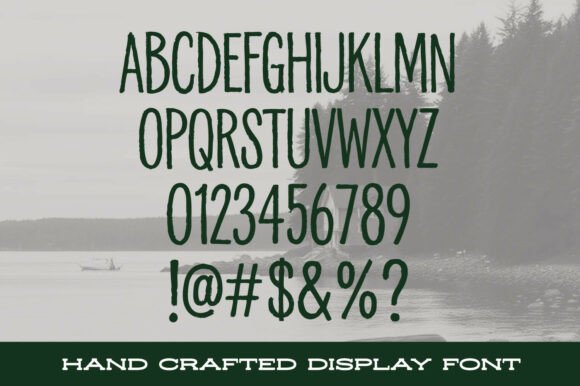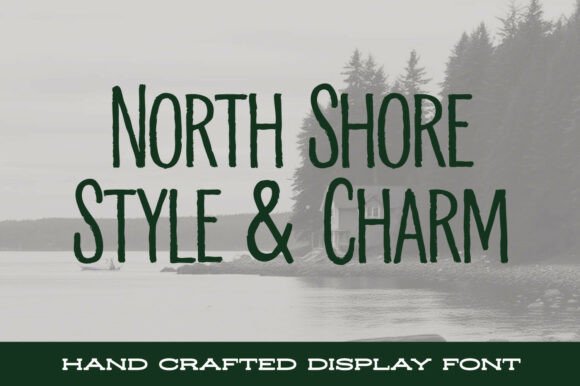
Introducing Grand Marais Font: A Hand-Drawn Display Font with a Rustic Charm
Are you looking for a font that captures the essence of the great outdoors? Do you want to add a touch of rustic charm to your designs? Look no further than Grand Marais Font, a tall, narrow, and hand-drawn display font that embodies the spirit of adventure and artisanal craftsmanship.
The Inspiration Behind Grand Marais Font
Grand Marais Font is inspired by the natural beauty and rustic charm of the North Shore. The font’s creator drew inspiration from the rugged landscape, weathered wood, and distressed textures found in the great outdoors. The result is a font that blends a handcrafted wildness with readability, making it perfect for designers and crafters who want to add a touch of authenticity to their work.
Design Characteristics of Grand Marais Font
Grand Marais Font is a bold yet slender display font with a distressed organic edge. Its letterforms rise with rugged confidence, carrying subtle irregularities and small serifs that give it a weathered, authentic character. The font’s imperfect strokes and raw texture bring a sense of personality and grit, while its condensed proportions ensure impact in tight spaces.
Perfect for Posters, Signage, and Branding
Grand Marais Font is perfect for designers and crafters who want to create eye-catching posters, signage, and branding materials that stand out from the crowd. Its bold and slender letterforms make it ideal for use in titles, headings, and short phrases, while its distressed texture adds a touch of rustic charm to any design.
Use Cases for Grand Marais Font
Grand Marais Font is versatile and can be used in a variety of creative projects, including:
- Modern rustic branding: Add a touch of authenticity to your brand with Grand Marais Font’s distressed texture and rustic charm.
- Outdoor themes: Perfect for designs that require a bold and adventurous spirit, such as outdoor gear, travel brochures, and environmental campaigns.
- Artistic statements: Use Grand Marais Font to add a touch of personality and grit to your artistic statements, such as posters, flyers, and social media graphics.
Benefits of Using Grand Marais Font
Grand Marais Font offers a range of benefits for designers and crafters, including:
- Unique and authentic character: Grand Marais Font’s distressed texture and rustic charm give it a unique and authentic character that sets it apart from other fonts.
- Readability: Despite its distressed texture, Grand Marais Font remains highly readable, making it perfect for use in titles, headings, and short phrases.
- Versatility: Grand Marais Font can be used in a variety of creative projects, from posters and signage to branding and artistic statements.
| Author | stompstock |
Grand Marais Font is a hand-drawn display font that captures the essence of hand-crafted design rooted in nature. Its bold yet slender letterforms, distressed texture, and rustic charm make it perfect for designers and crafters who want to add a touch of authenticity and adventure to their work. Whether used for modern rustic branding, outdoor themes, or artistic statements, Grand Marais Font is sure to make a lasting impression.